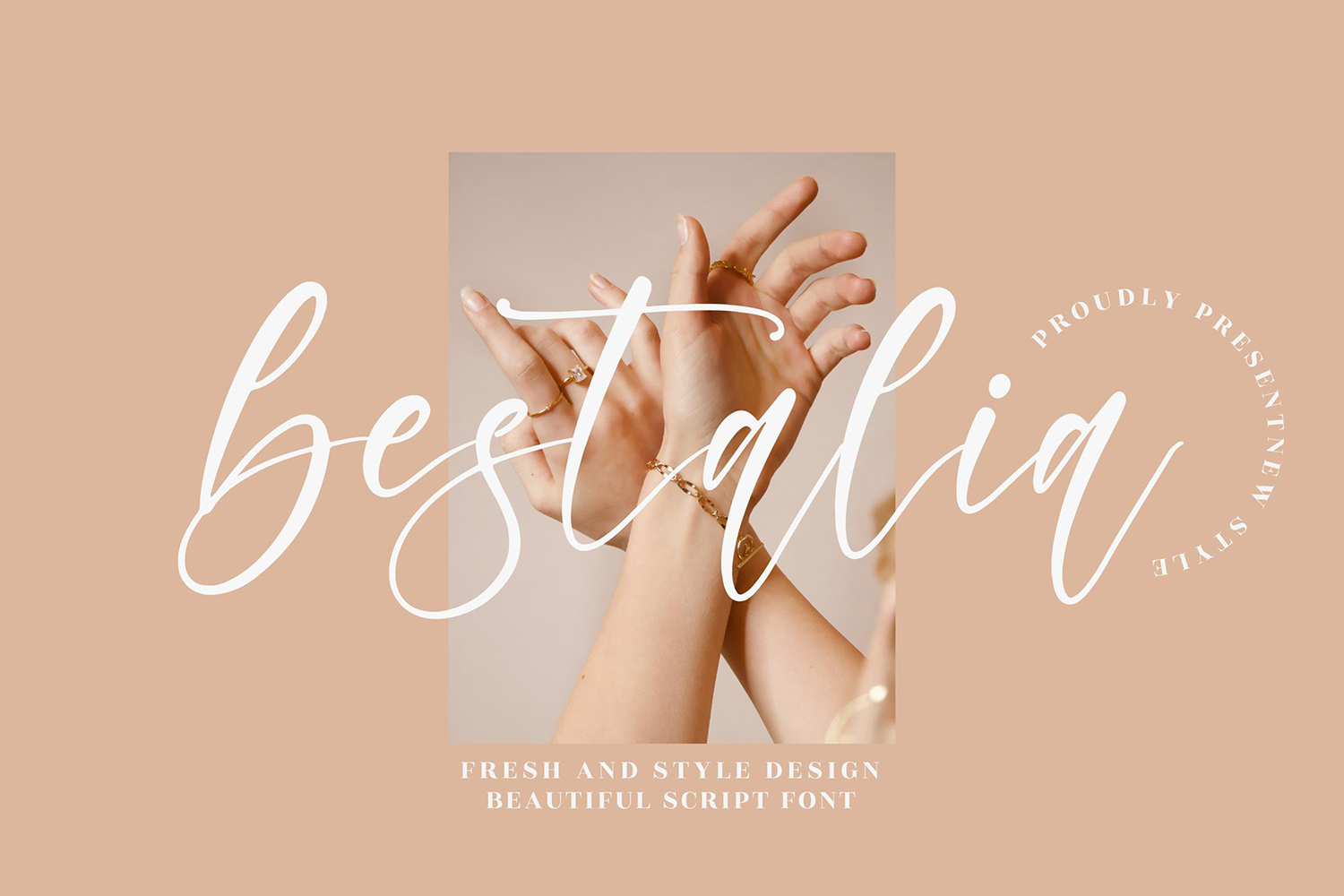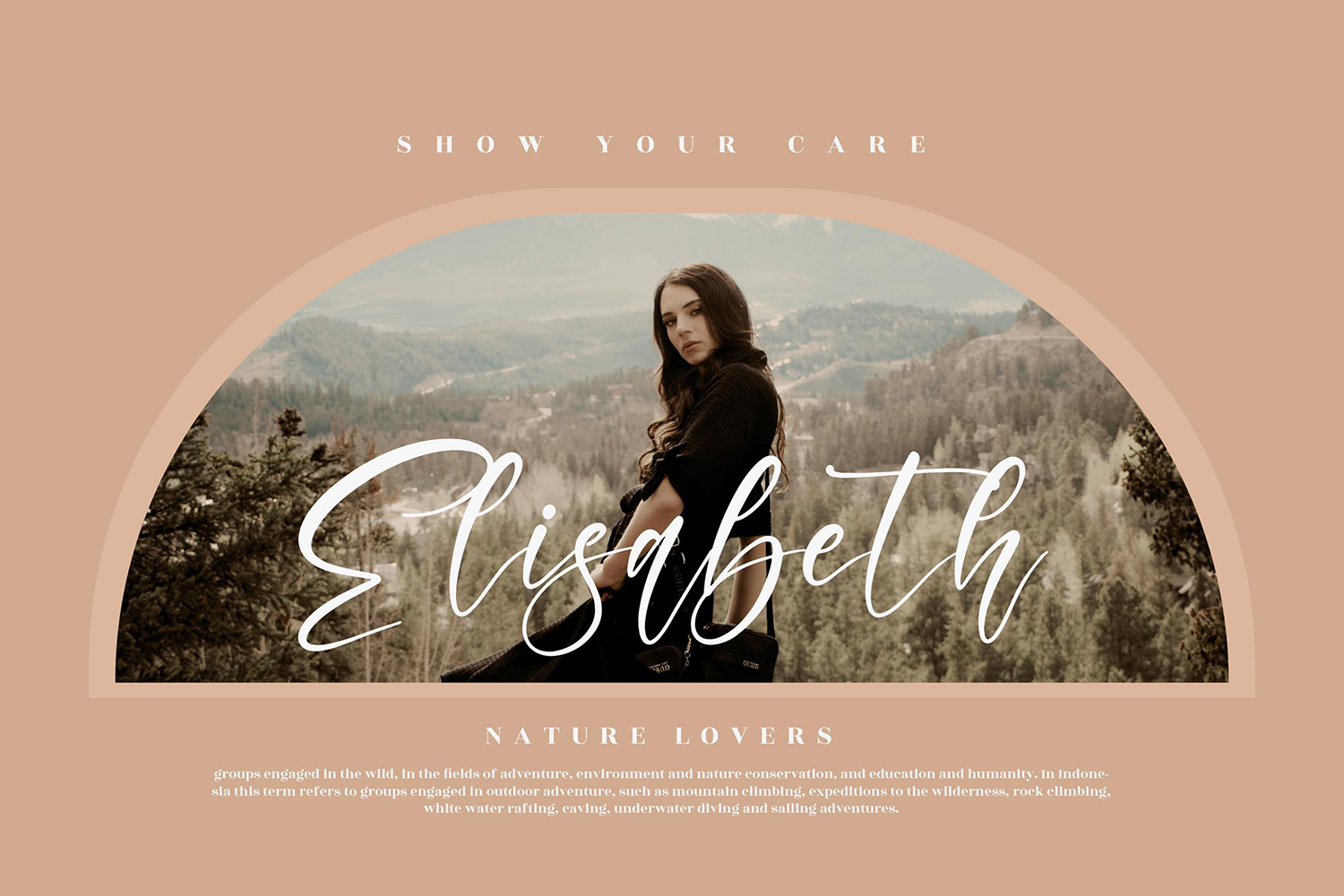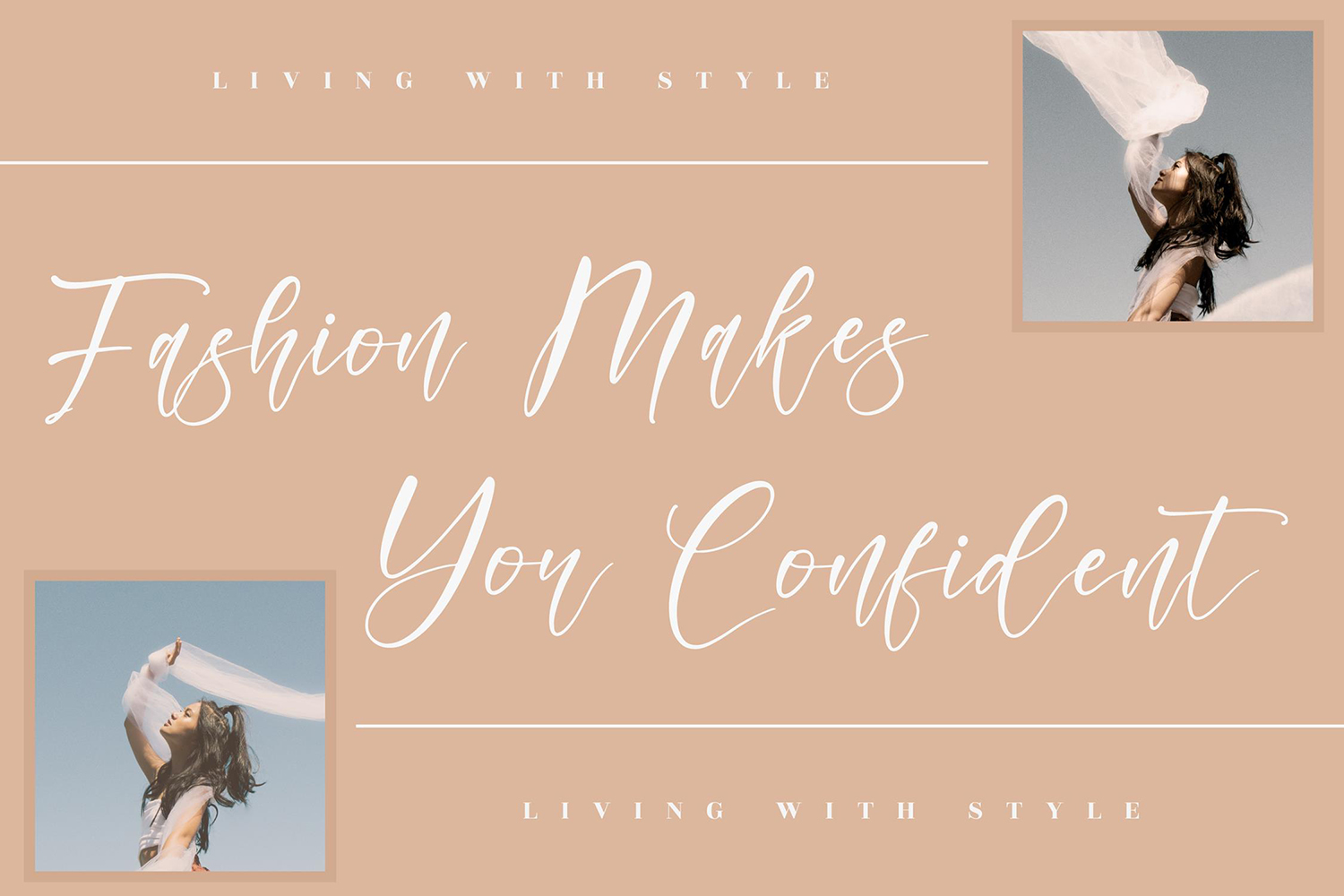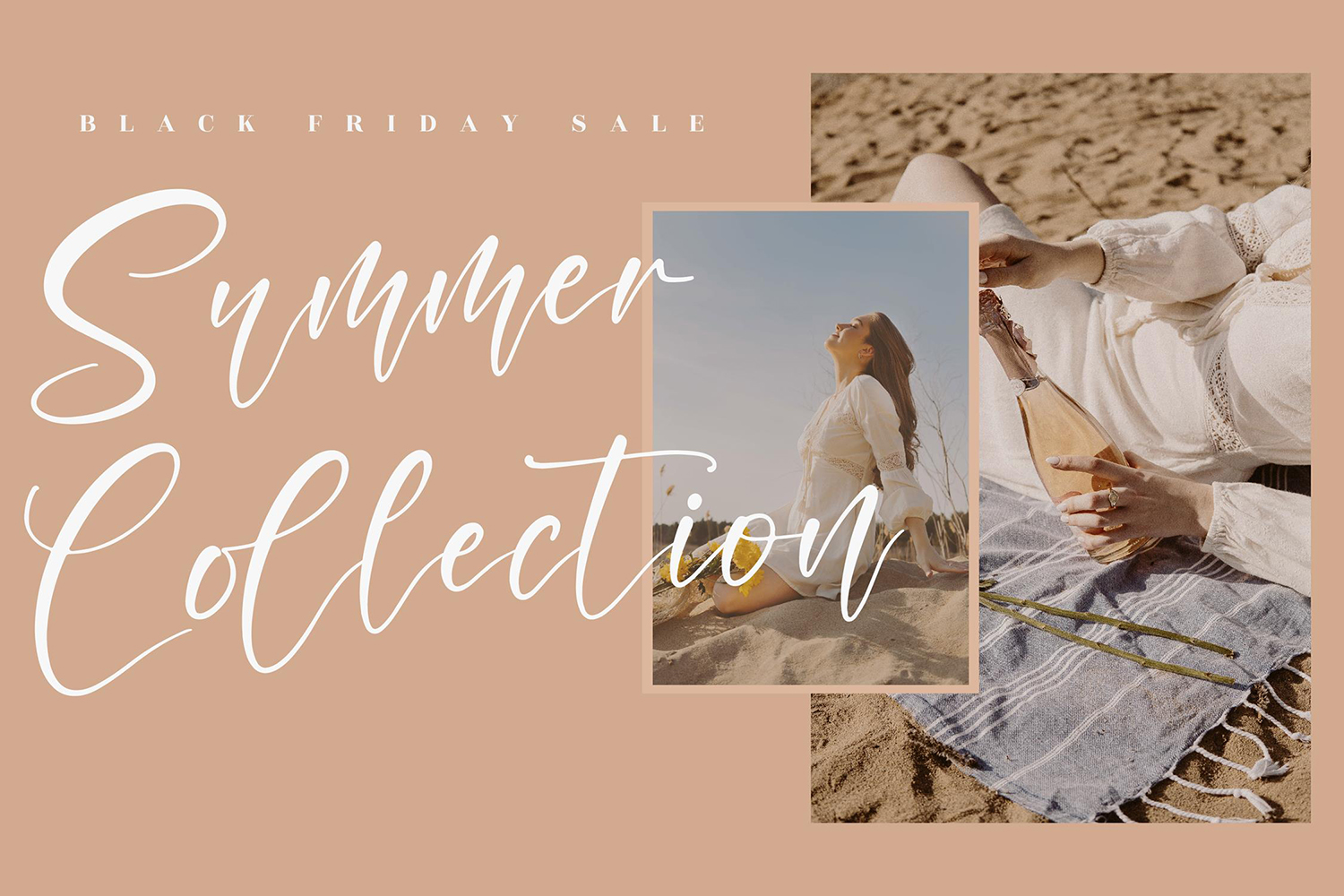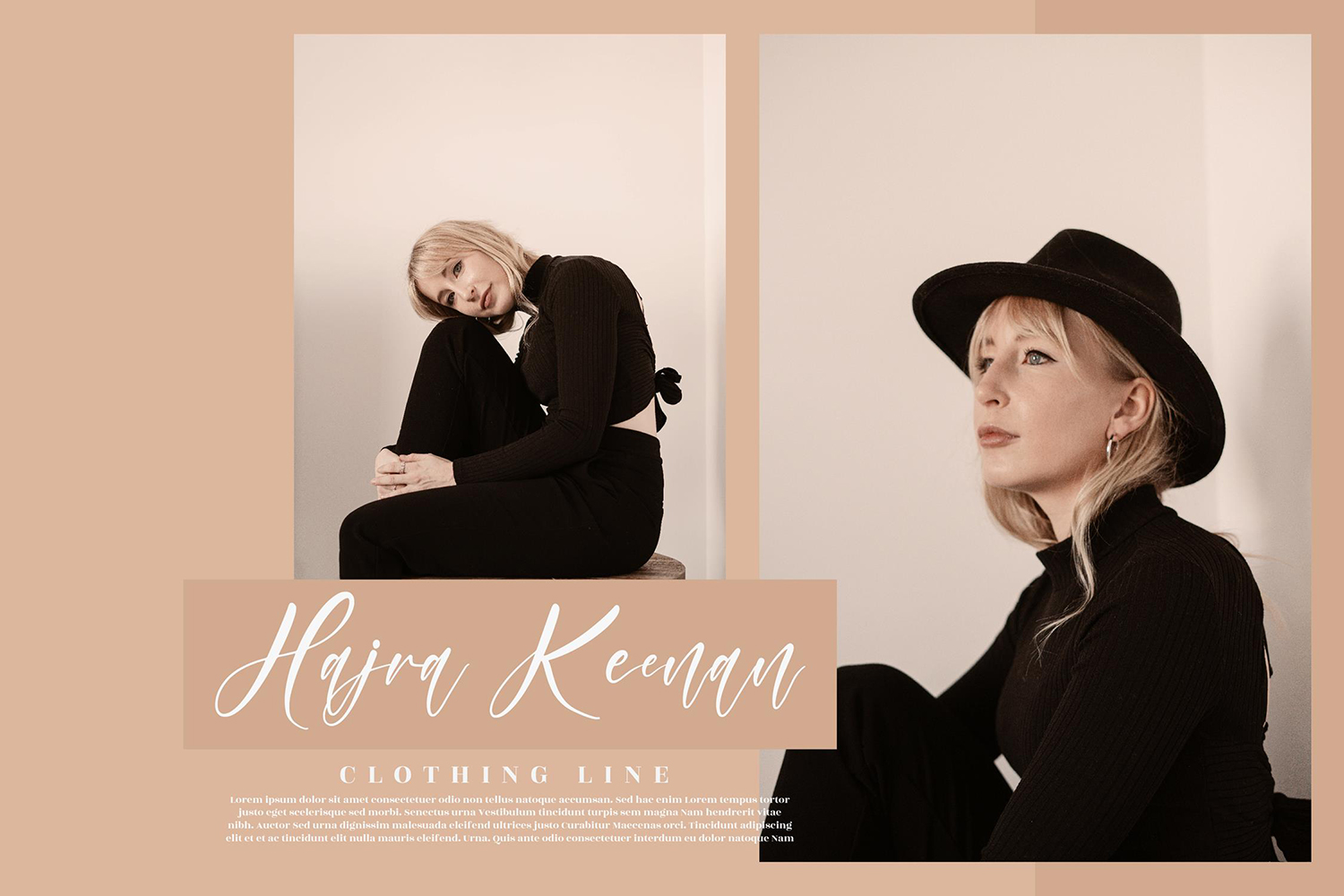
Bestalia Free Font
Bestalia Free Font is a beautiful handwritten font that simulates detailed brush writing and is very suitable for creating various design projects that require a scripted font. These can be posters, invitations, cards, branding, flyer prints, etc. If you wish to access more features and use them for commercial work please buy the full version.